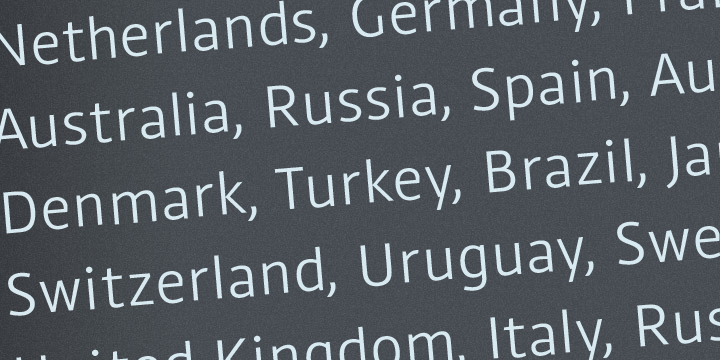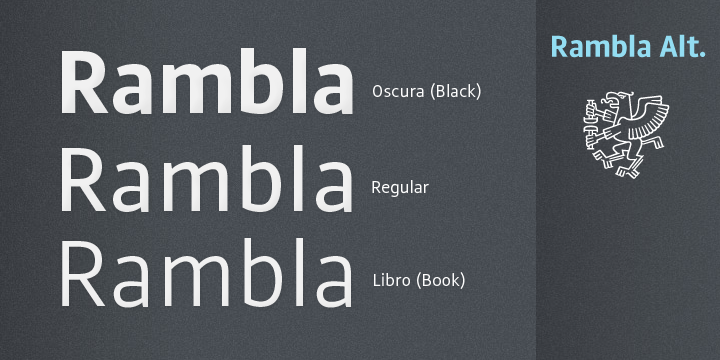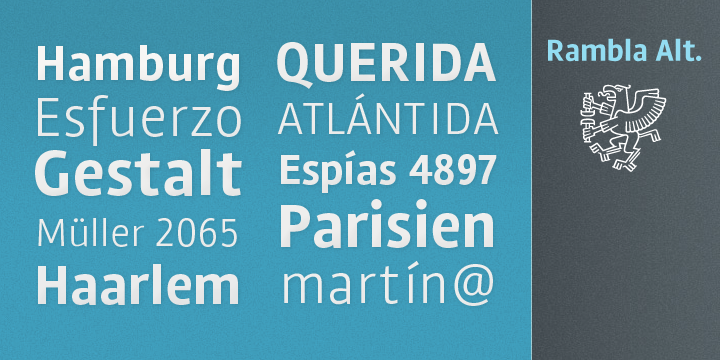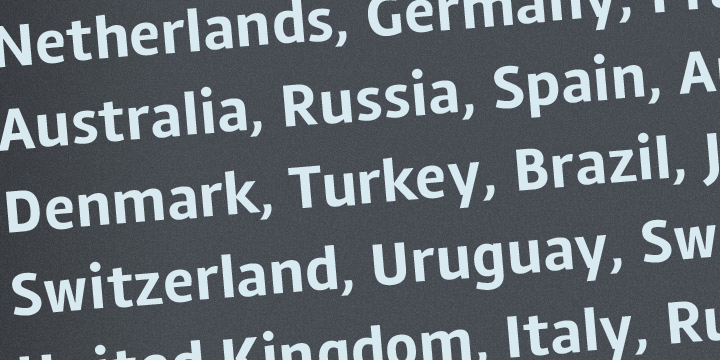
Rambla Alt Family (6 fonts)
For this reason Rambla Alt is great when used together with Rambla. Rambla Alt is a humanist sans for medium-long texts. It’s slightly condensed, with a generous x-height and short ascender/descenders. Its proportions have the objective of gaining space in height and width. It’s elegant in large sizes and legible at the same time, with a lot of rhythm in small sizes.